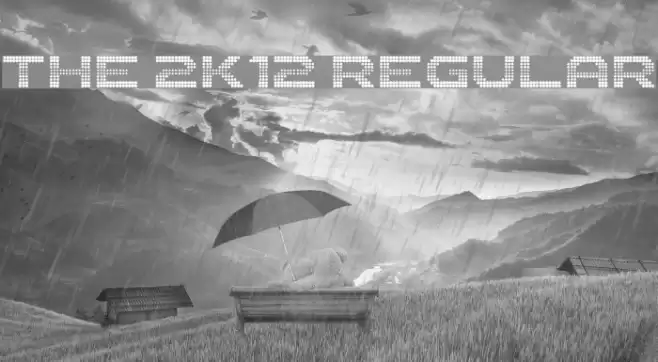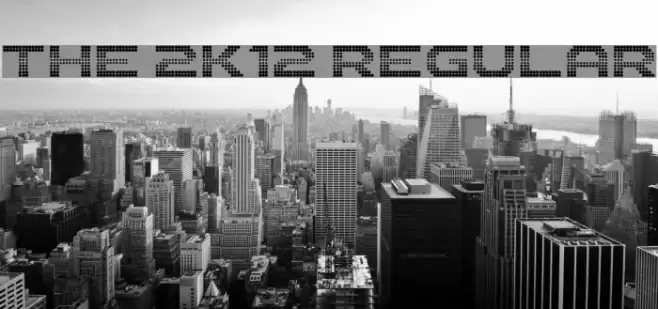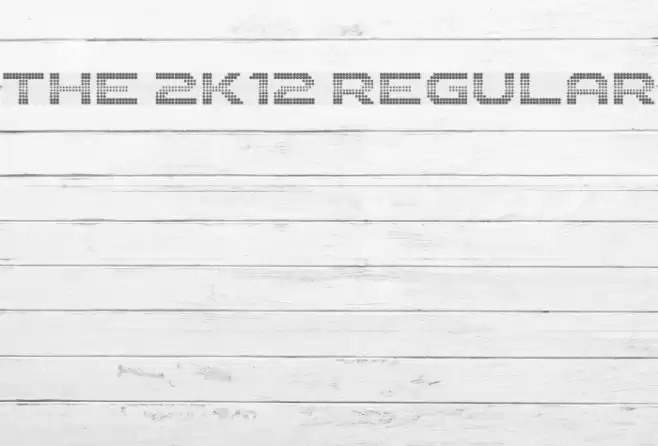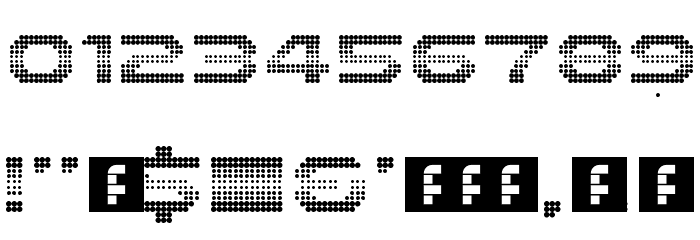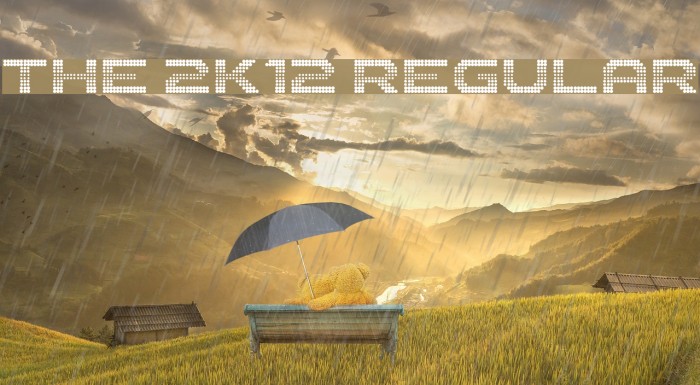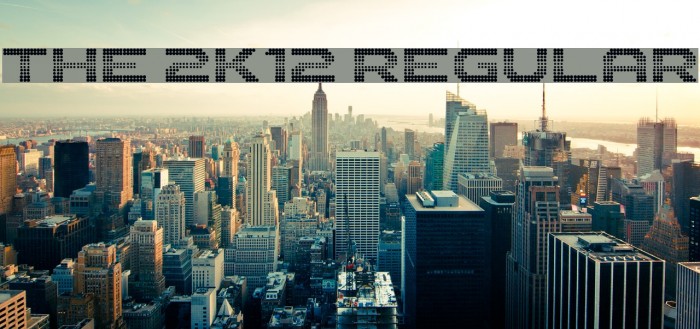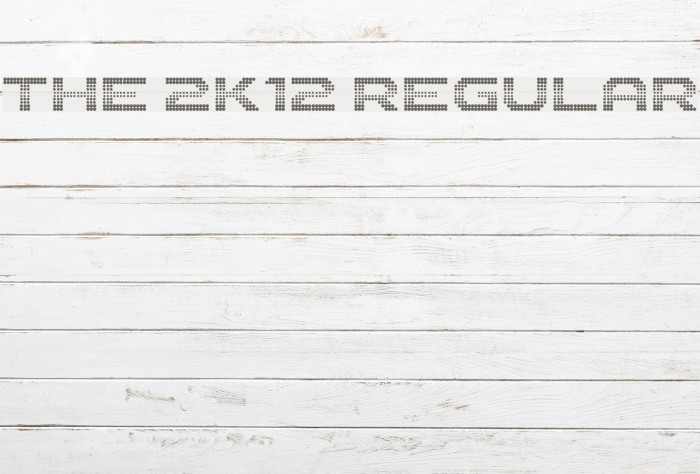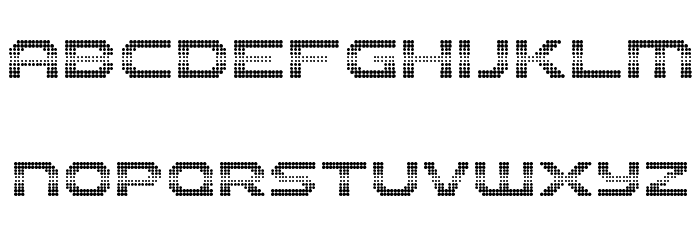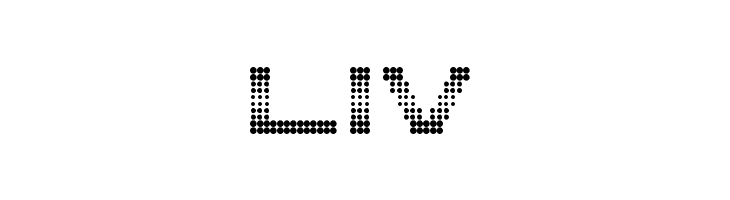
The 2K12 Regular Font
The 2K12 Regular Description
This font features a unique design composed of small, evenly spaced dots forming each character. The style is reminiscent of digital displays or LED screens, giving it a modern and tech-inspired appearance. The characters are uniformly structured, maintaining a consistent height and width, which enhances readability despite the unconventional dot pattern. This font is particularly striking in its geometric precision, with each letter and number crafted to fit within a grid-like structure. The special characters follow the same dot matrix pattern, ensuring a cohesive look across all symbols.
A modern, dot matrix-style font inspired by digital displays from Futuristic fonts.
- Proposed Projects: Ideal for digital-themed projects, tech branding, futuristic designs, or any creative work requiring a modern, digital aesthetic.
- Use Case: Headlines, Logos, Digital displays